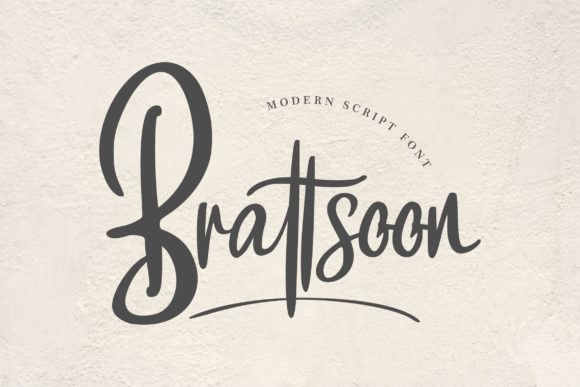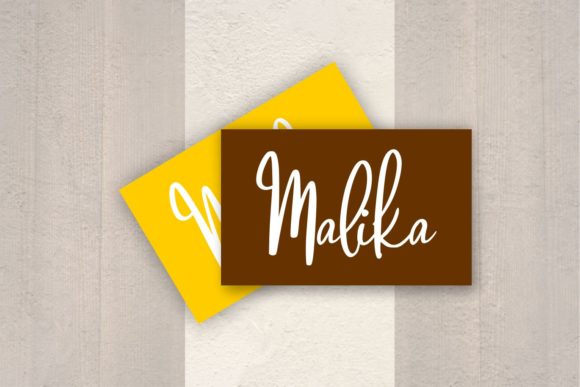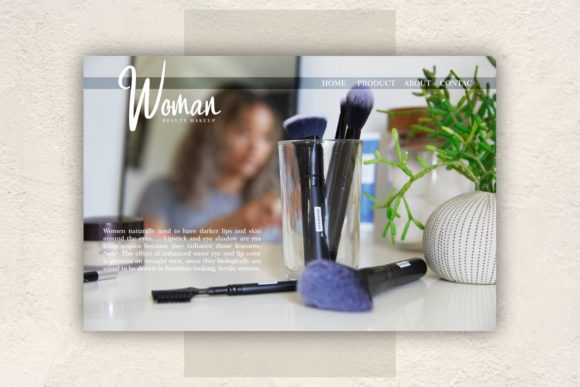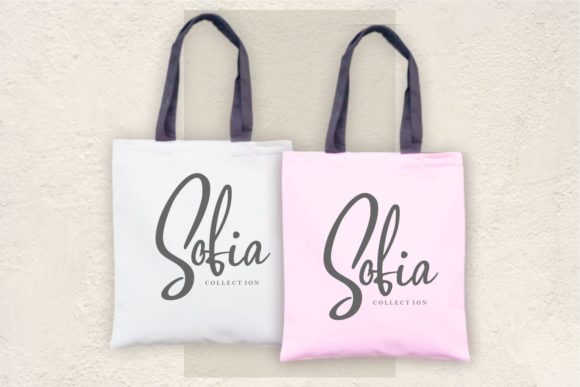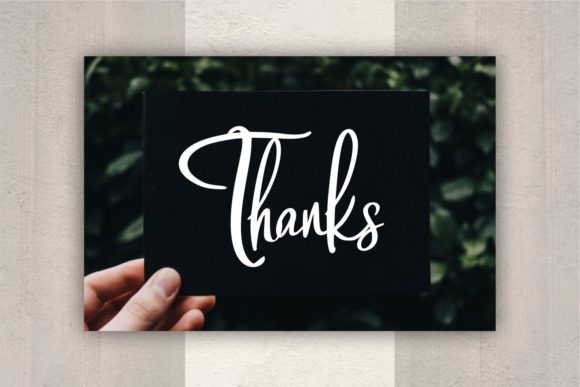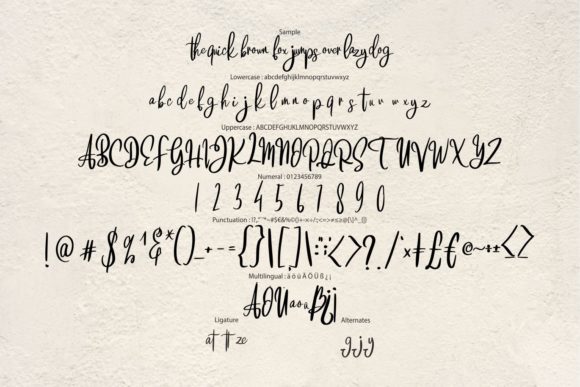
Brattsoon Font
About Brattsoon Font
Brattsoon is a friendly and modern script font with a unique style. It is perfectly suited for a wide variety of projects!